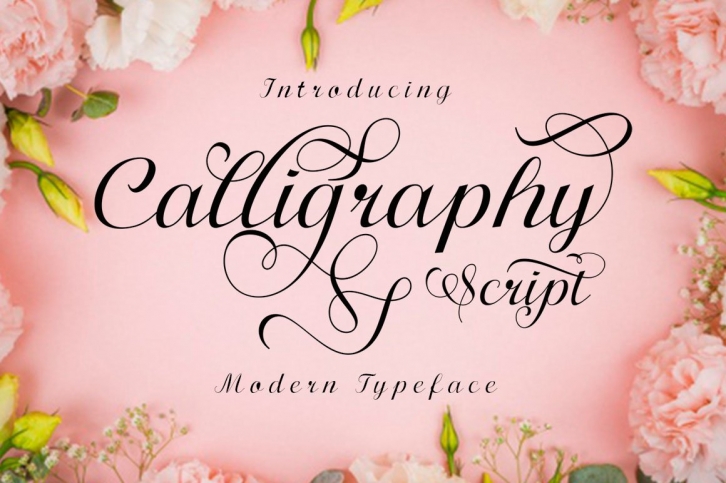
Calligraphy Script is a beautiful font that was designed by Shape Studio. It's a great choice for designers and creatives who need such a font. It was released on July 13, 2020 and the file size is 9.8 MB. Calligraphy Script may give a more youthful, expressive and casual look to your project. It is a very beautiful, refined, elegant, and high-quality font.